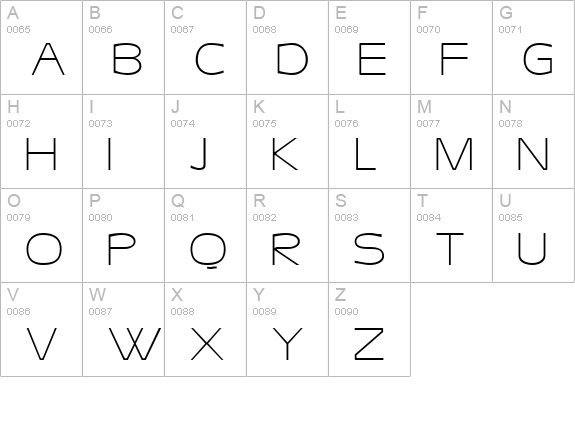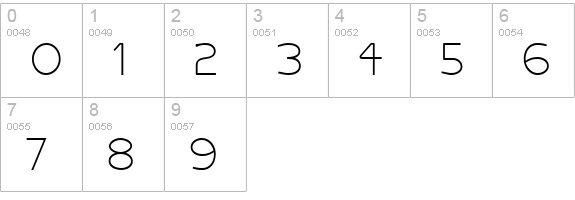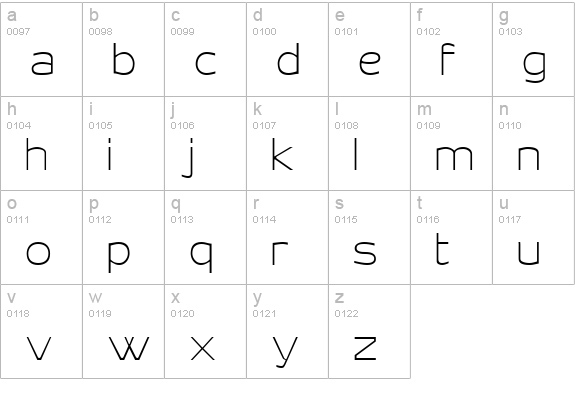
Aero Display SSi Font Details
Aero Display SSi font is a sleek and modern typeface that exudes sophistication and style. With its clean lines and sharp edges, this font is perfect for creating eye-catching designs that demand attention. The versatility of Aero Display SSi makes it suitable for a wide range of projects, from branding to editorial design. One of the best things about Aero Display SSi font is that it is available for free download at FontsMarket.com. This means that you can easily access this premium font without any cost, making it a valuable addition to your font collection. Whether you're a designer looking to elevate your projects or a business owner in need of a striking font for your branding materials, Aero Display SSi font is sure to impress. Download it today and take your designs to the next level!